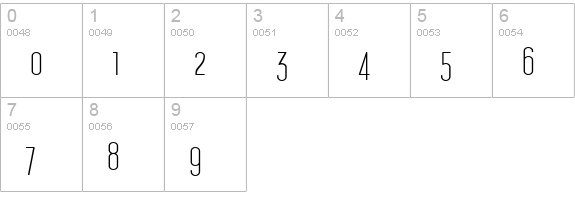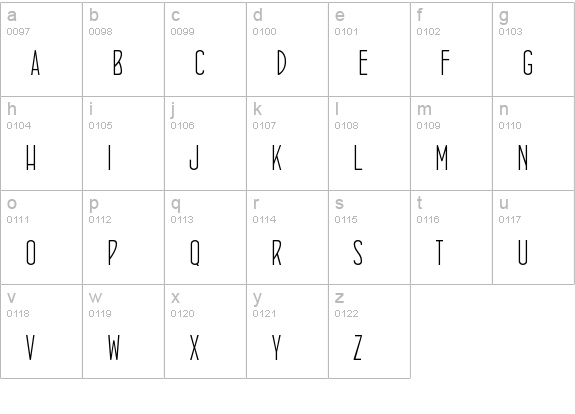
ConcursoItalian BTN Lt Font Details
ConcursoItalian BTN Lt is a stunning and elegant font that exudes sophistication and style. Its sleek lines and modern design make it perfect for a wide range of projects, from branding to editorial design. The font's refined appearance adds a touch of class to any design, making it a versatile choice for both print and digital applications. The best part about ConcursoItalian BTN Lt is that it is completely free to download at FontsMarket.com. This means you can access this beautiful font without any cost, making it an excellent option for designers on a budget or anyone looking to add a touch of elegance to their projects without breaking the bank. With its timeless appeal and effortless charm, ConcursoItalian BTN Lt is sure to elevate your designs and make a lasting impression. Download it for free today and discover the endless possibilities this font has to offer.